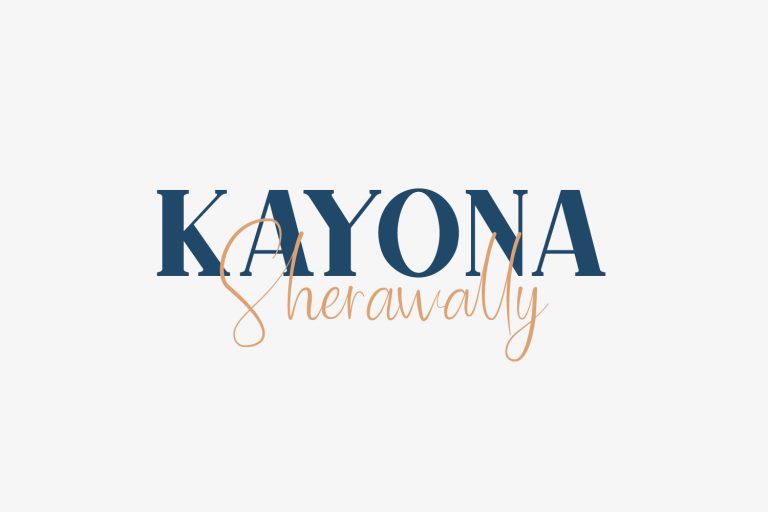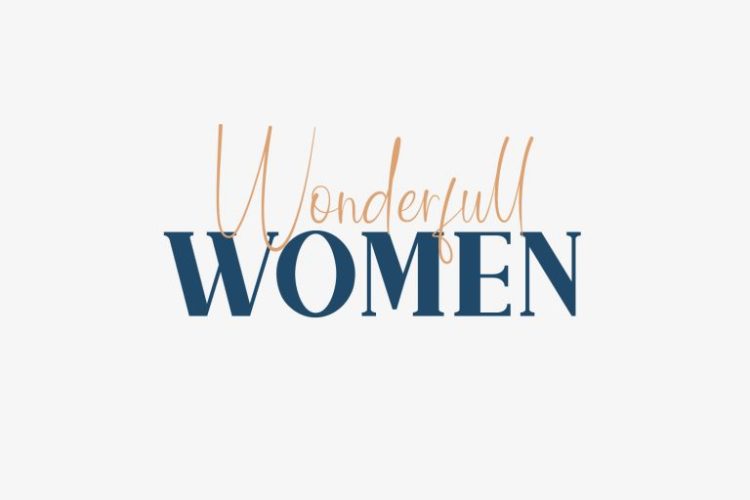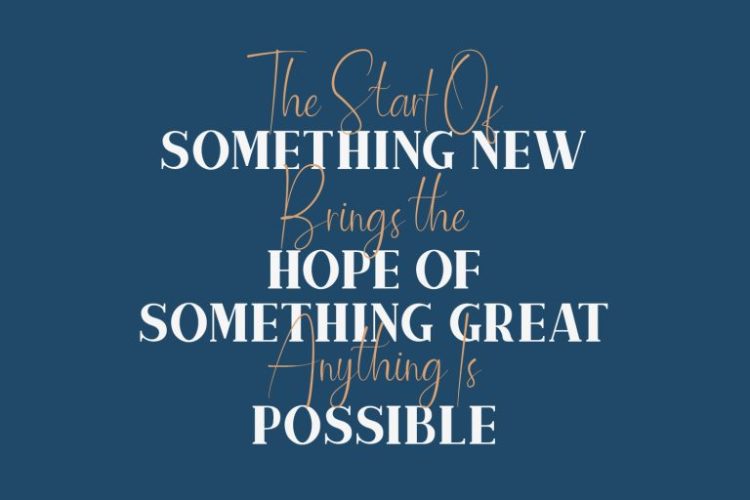
Rosis and Ballroom Fonts
Some love stories deserve to be told in a language that transcends the ordinary — and Rosis and Ballroom Fonts was created to tell exactly these stories. A charming handwritten serif duo with romantic flair and timeless elegance, Rosis and Ballroom gives designers two beautifully matched typefaces that together create typographic pairings of extraordinary warmth and sophisticated grace.
The genius of Rosis and Ballroom as a font duo lies in the thoughtful relationship between its two typefaces. Each member of the pair has been designed with the other in mind — the script qualities of one complement the structural characteristics of the other in ways that create natural visual harmony rather than forced contrast. The handwritten warmth shared by both faces ties them together emotionally, while their structural differences create the typographic hierarchy and visual interest that makes layered design work so effectively. Using this duo feels like having a complete design toolkit in a single purchase.
Wedding stationery designers who work at the premium end of the market find Rosis and Ballroom an extraordinary tool for creating classic wedding invitation suites that balance romantic handwritten warmth with typographic sophistication. The duo handles the full range of wedding stationery needs — from the principal invitation to the details card, the envelope addressing to the ceremony program — with consistent visual elegance throughout. Ballroom event designers, formal dinner organisers, and gala event planners find the fonts create the perfect typographic atmosphere for occasions that call for both elegance and genuine human warmth.
Vintage-inspired packaging, romantic lifestyle brand identity, anniversary celebration materials, and any design context where the combination of handwritten authenticity and serif refinement creates the ideal visual tone — Rosis and Ballroom is the perfect two-voice typographic solution.